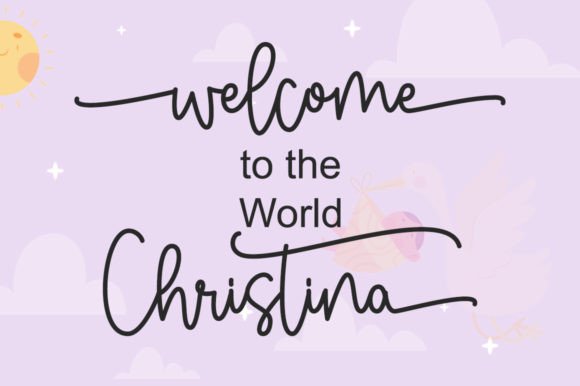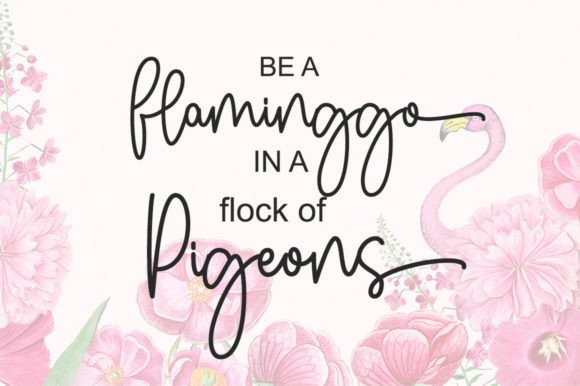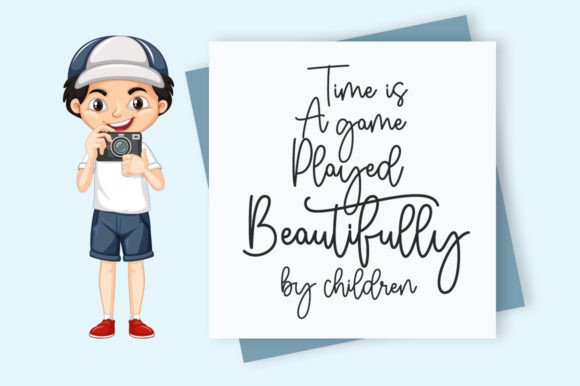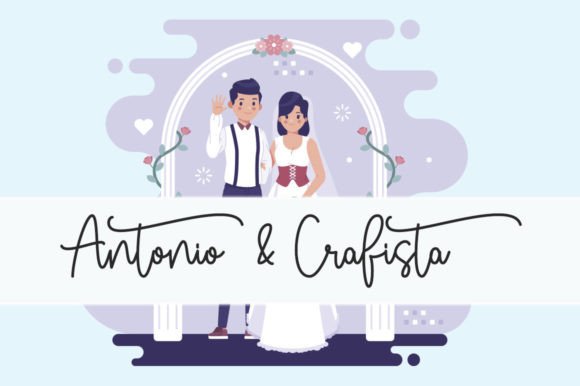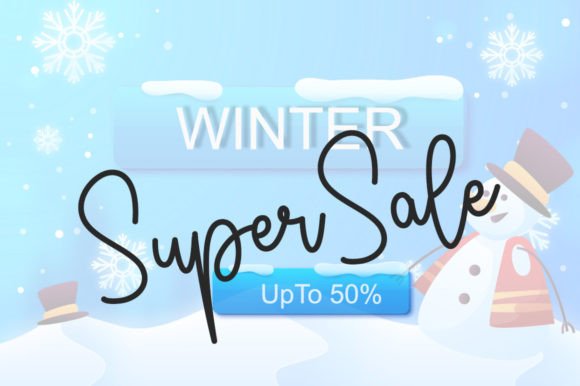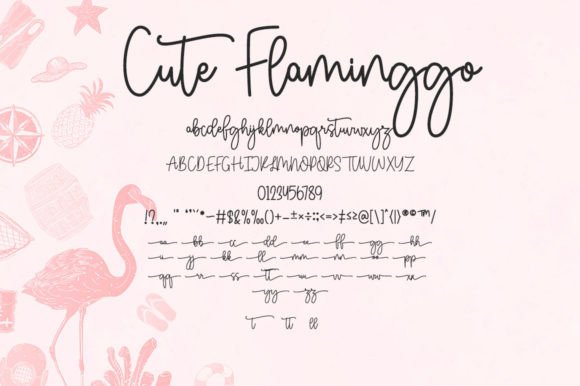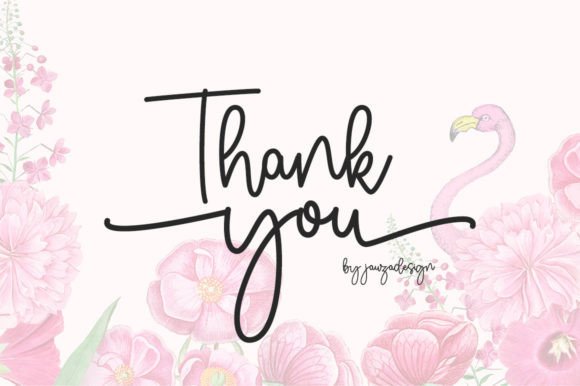
Cuteflaminggo Font
About Cuteflaminggo Font
Cuteflaminggo font is a beautiful and delicate script typeface that embodies elegance and modern style. When you download Cuteflaminggo font, you add a classy, sophisticated font to your design toolkit, perfect for elevating your creative projects. Its refined lines and graceful swashes give your work a polished and professional look, making it ideal for a wide variety of applications.
Perfect for Invitations and Stationery
Cuteflaminggofont excels in wedding and event design. Use it to create stunning invitations, stationery, and save-the-date cards that capture the mood of elegance and romance. The font’s smooth, flowing style makes every letter a piece of art, perfect for making memorable impressions.
Ideal for Social Media and Branding
With the rise of digital media, having a font that translates well across platforms is essential. Cuteflaminggofont works beautifully on social media posts, digital branding, and promotional materials. Download Cuteflaminggofont to bring a consistent and elegant visual identity to your online presence.
Access to All Glyphs and Swashes
Cuteflaminggofont is PUA encoded, which means you can easily use all the unique glyphs and swashes included. This feature allows you to customize your designs further, adding a personal and artistic touch that enhances the overall aesthetic.